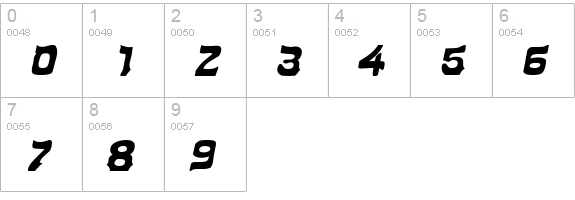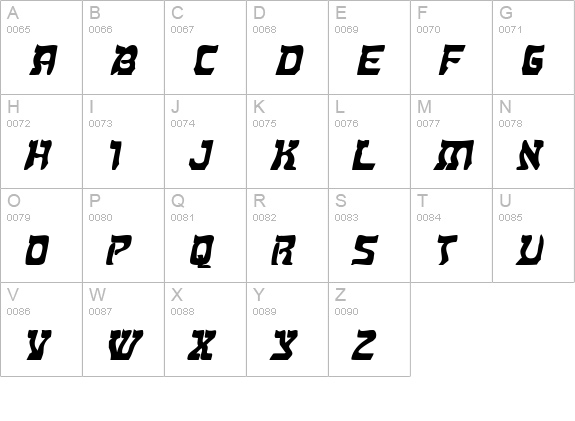
Kosher Extended BoldItalic is a distinctive, extended-width variant in the Kosher typeface family \xE2\x80\x94 well suited to design and typography projects.
Kosher Extended BoldItalic is a striking and versatile font that combines boldness with elegance. With its unique style and eye-catching design, this font is sure to make a statement in any project. The bold and italic features of Kosher Extended add a touch of sophistication and modernity to your designs, making it perfect for headings, logos, and other prominent text. What sets Kosher Extended BoldItalic apart is its adherence to kosher design principles, ensuring that it meets the highest standards of quality and aesthetic appeal. This font is not only visually appealing but also carries a sense of tradition and authenticity that will resonate with a wide range of audiences. The best part? Kosher Extended BoldItalic is available for free download at FontsMarket.com. So whether you're a designer looking to add a touch of flair to your projects or a business owner in need of a standout font for branding, Kosher Extended BoldItalic has got you covered. Download it now and elevate your designs to new heights!